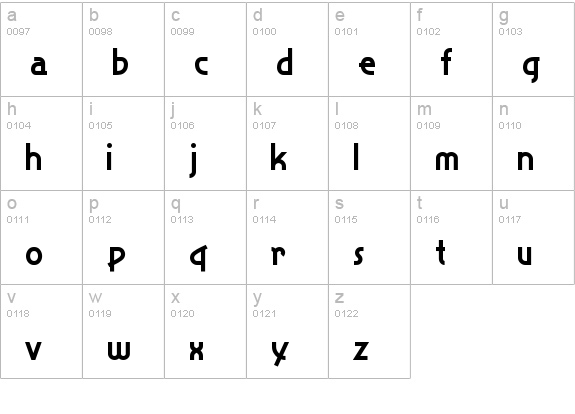
SnappyService Font Details
Introducing SnappyService, a modern and trendy font that will add a touch of elegance and professionalism to your designs. With its clean lines and sleek curves, SnappyService is perfect for a wide range of projects, from logos and branding to websites and print materials. This versatile font exudes confidence and sophistication, making it ideal for businesses looking to make a lasting impression. But what sets SnappyService apart from other fonts on the market? It's the fact that it's completely free! Yes, you heard that right. SnappyService is freely available to download at FontsMarket.com, making it accessible to designers of all skill levels, regardless of budget constraints. So whether you're a seasoned professional or just starting out, you can take advantage of this high-quality font without breaking the bank. SnappyService offers a wide range of weights and styles, allowing you to customize and experiment with different looks and aesthetics. Its legibility and readability make it perfect for both headlines and body text, ensuring that your message is conveyed clearly and effectively. With SnappyService, you can effortlessly create stunning designs that captivate your audience and leave a lasting impression. So why wait? Download SnappyService today from FontsMarket.com and elevate your designs to new heights. With its modern and stylish appeal, this font will make your projects stand out from the crowd. Don't miss out on this incredible opportunity to enhance your design toolkit with a font that is not only visually appealing but also free. Get SnappyService now and let your creativity soar!